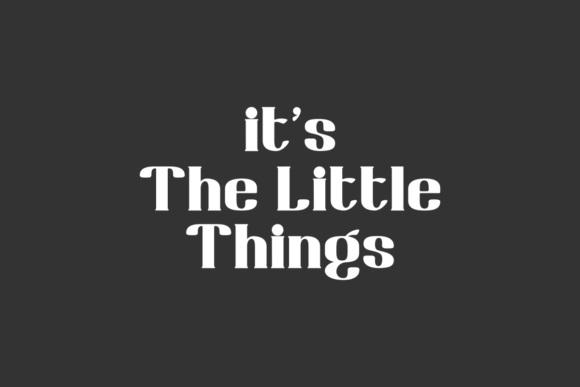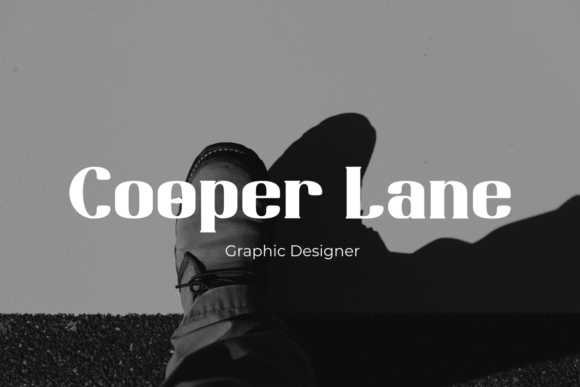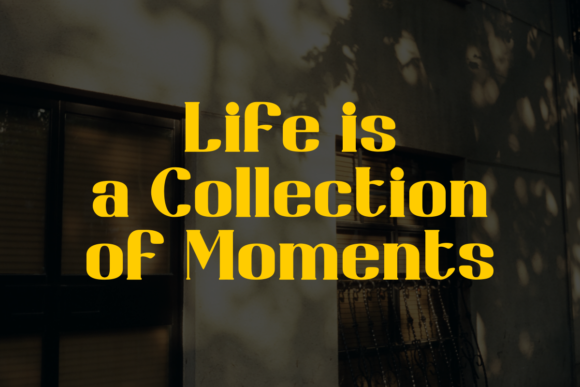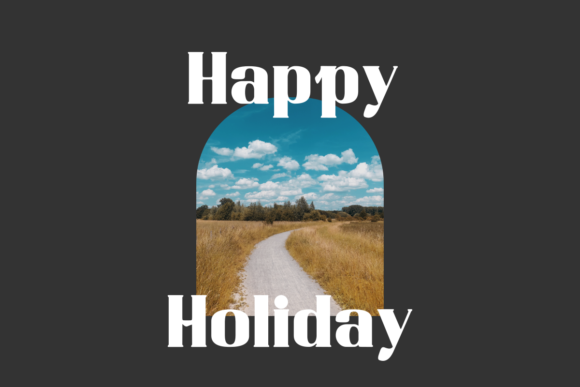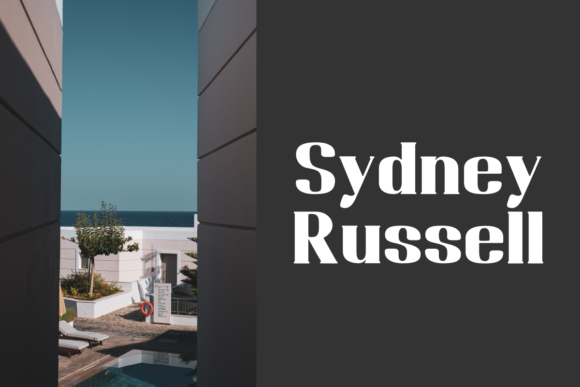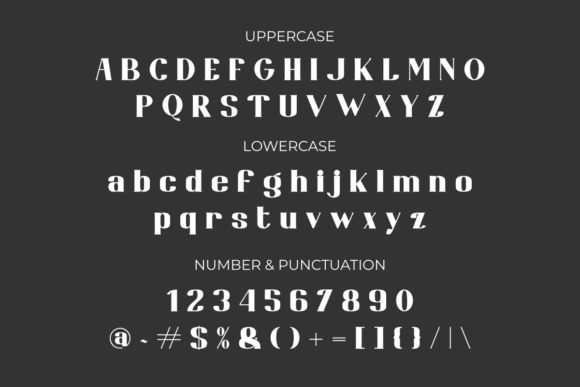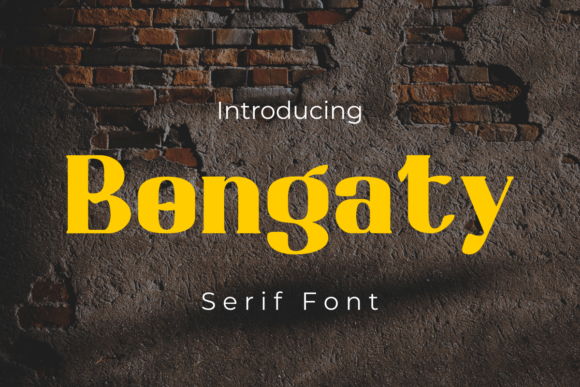
Bongaty Font: The Ultimate Display Font for Bold Designs
Are you looking for a font that can add a touch of trendiness and assertiveness to your designs? Look no further than the Bongaty Font. This cool, thick lettered display font is perfect for designers and crafters who want to make their designs come to life. In this article, we’ll take a closer look at the Bongaty Font, its features, and how you can use it to elevate your designs.
What is Bongaty Font?
Bongaty Font is a display font that features a unique, bold, and assertive style. Its thick letters make it perfect for headlines, titles, and other design elements that need to grab attention. The font is designed to be trendy and modern, making it ideal for designers who want to create fresh and contemporary designs.
Key Features of Bongaty Font
- PUA Encoded: Bongaty Font is PUA (Private Use Area) encoded, which means you can access all of the glyphs and swashes with ease. This feature makes it easy to use the font and get the most out of its design.
- Thick Lettered: The font features thick, bold letters that are perfect for creating eye-catching designs.
- Assertive Style: Bongaty Font has an assertive style that makes it perfect for designs that need to make a statement.
- Trendiness: The font has a trendy and modern feel to it, making it ideal for designers who want to create fresh and contemporary designs.
How to Use Bongaty Font
Bongaty Font is perfect for a variety of design projects, including:
- Headlines and Titles: Use Bongaty Font to create bold and eye-catching headlines and titles for your designs.
- Logos and Branding: The font’s unique style makes it perfect for logos and branding projects that need to stand out.
- Posters and Flyers: Bongaty Font is ideal for creating posters and flyers that need to grab attention.
- Social Media Graphics: Use the font to create bold and eye-catching social media graphics that will help your content stand out.
Benefits of Using Bongaty Font
- Easily Readable: Despite its bold style, Bongaty Font is easily readable, making it perfect for designs that need to communicate a message.
- Versatile: The font is versatile and can be used for a variety of design projects.
- Time-Saving: With its PUA encoding, you can access all of the glyphs and swashes with ease, saving you time and effort.
- High-Quality: Bongaty Font is a high-quality font that is designed to deliver exceptional results.
Tips for Using Bongaty Font Effectively
- Use it Sparingly: Bongaty Font is a bold font, so use it sparingly to avoid overwhelming your designs.
- Pair it with Other Fonts: Experiment with pairing Bongaty Font with other fonts to create a unique and interesting design.
- Adjust the Size: Adjust the size of the font to create visual interest and hierarchy in your designs.
- Experiment with Colors: Experiment with different colors to find the perfect combination that works with your design.
Bongaty Font is a cool, thick lettered and assertive display font that is perfect for designers and crafters who want to make their designs come to life. With its PUA encoding, bold style, and trendy feel, it’s ideal for a variety of design projects. By following the tips outlined in this article, you can use Bongaty Font effectively and create designs that are bold, eye-catching, and memorable.